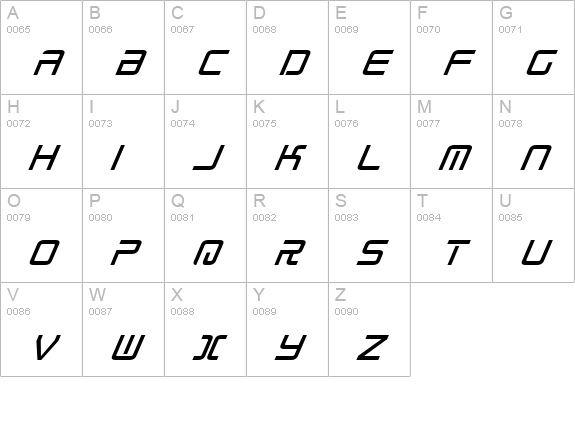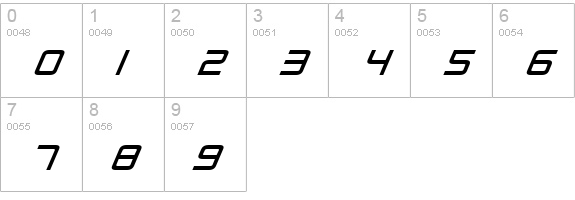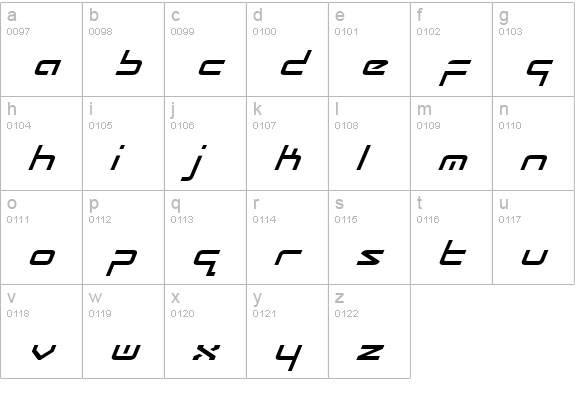
Radio Space Italic is a distinctive, italic variant in the Radio typeface family \xE2\x80\x94 well suited to design and typography projects.
Introducing Radio Space Italic, a font that takes typography to new dimensions. This extraordinary typeface effortlessly blends sleek elegance with a touch of cosmic enchantment, making it the perfect choice for those seeking a modern yet otherworldly aesthetic. The captivating curves and distinctive slant of Radio Space Italic create a sense of movement, as if each letter is gracefully floating through the vast expanse of space. Its sleek and streamlined design captures the essence of futuristic technology, while maintaining a timeless appeal that is sure to make a lasting impression. But what sets Radio Space Italic apart is not just its stunning visual impact; it also offers the freedom to unleash your creativity. Whether you're designing a cutting-edge logo, crafting an eye-catching headline, or adding a touch of celestial charm to your project, this font provides endless possibilities. And the best part? Radio Space Italic is freely available to download at FontsMarket.com. Yes, you heard it right - this one-of-a-kind font can be yours without any cost. We believe that creativity should be unrestricted, and that everyone deserves access to premium-quality fonts that inspire and elevate their work. So, why wait? Embark on a cosmic journey with Radio Space Italic and let your imagination reach new heights. Download it for free at FontsMarket.com and unlock the limitless potential that this extraordinary font has to offer. It's time to embrace the beauty of the universe in your designs.